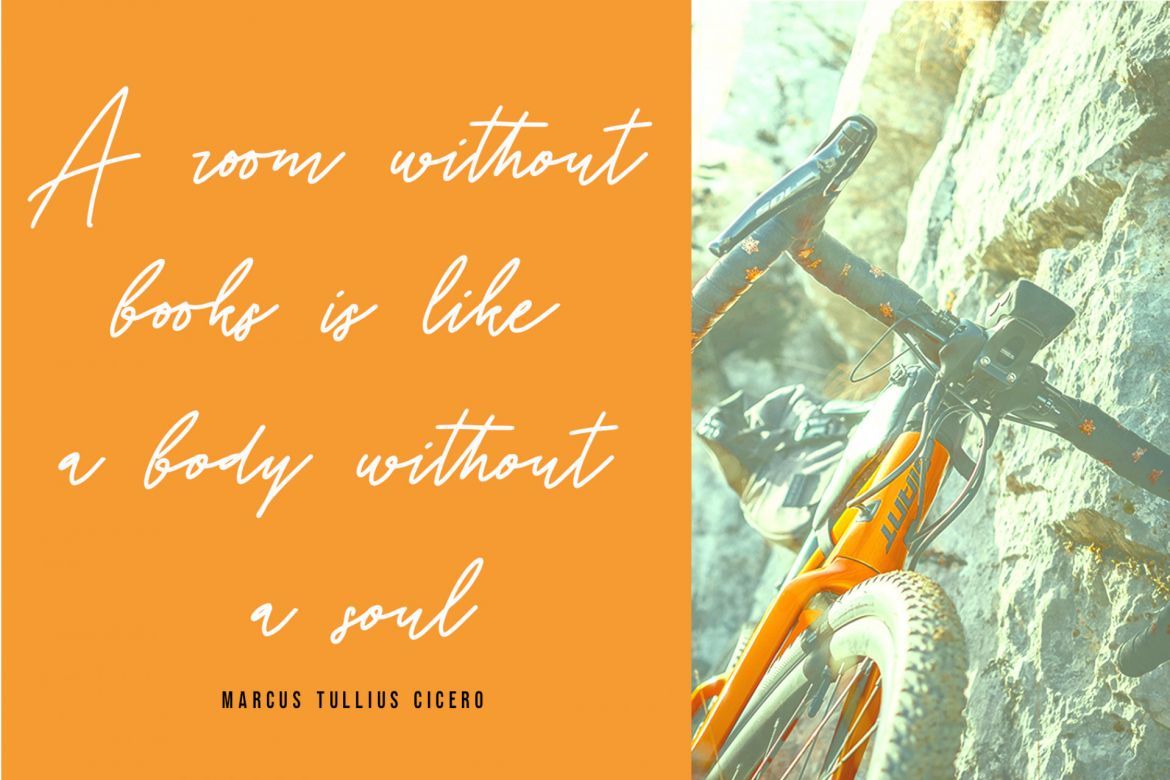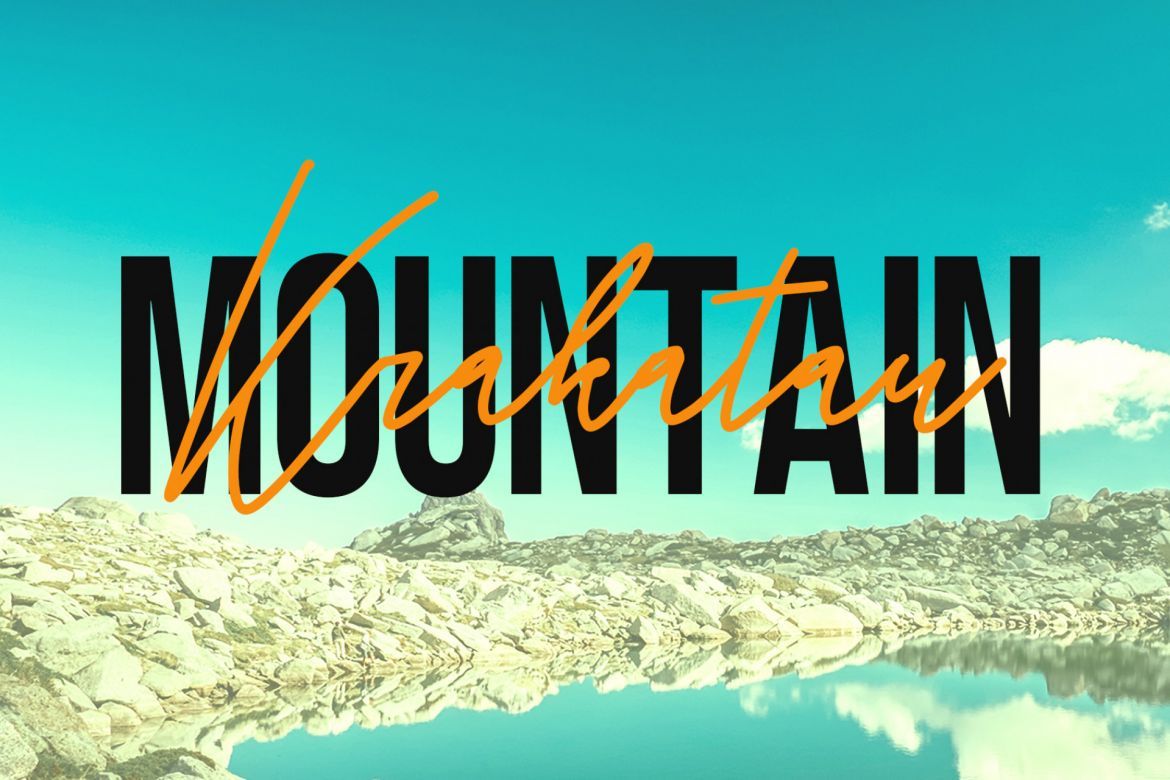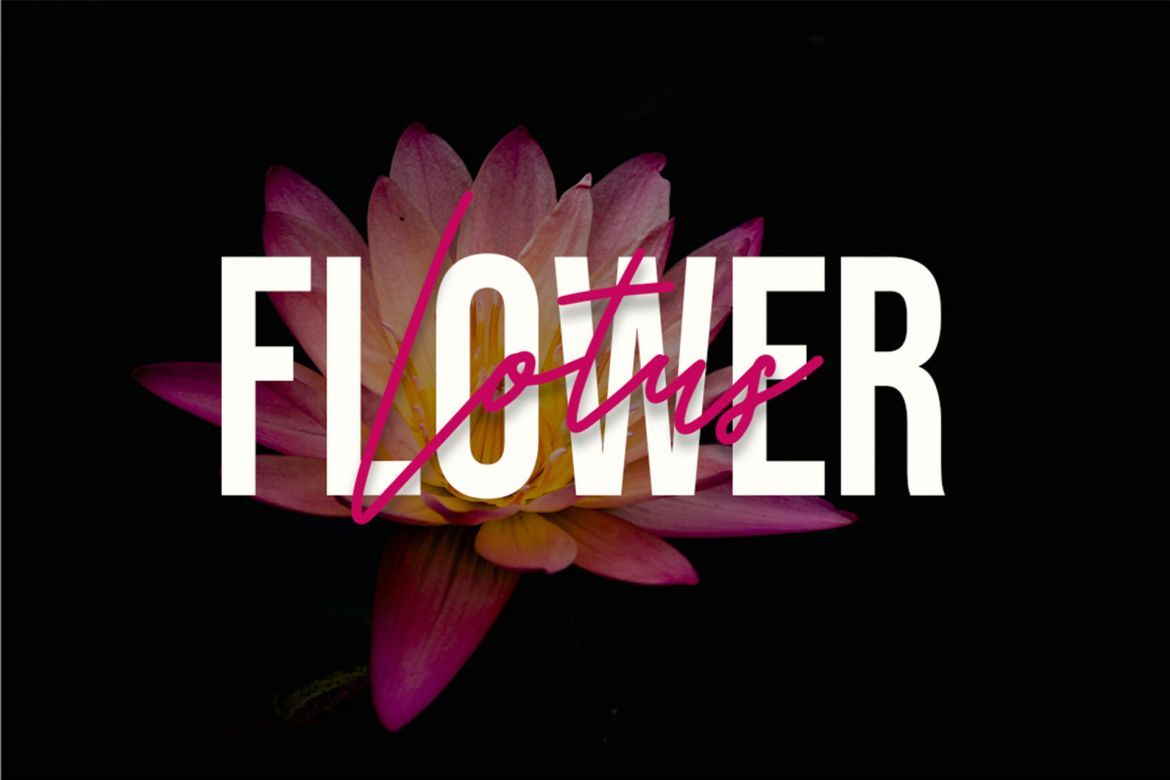
Hello Monday Font Duo
Hello Monday is a fun and cool handwritten font with a summery theme. Get inspired by its effortless style!
Hello Monday is perfect for branding projects, logo, wedding designs, social media posts, advertisements, product packaging, product designs, label, photography, watermark, banner, stationery and any projects.